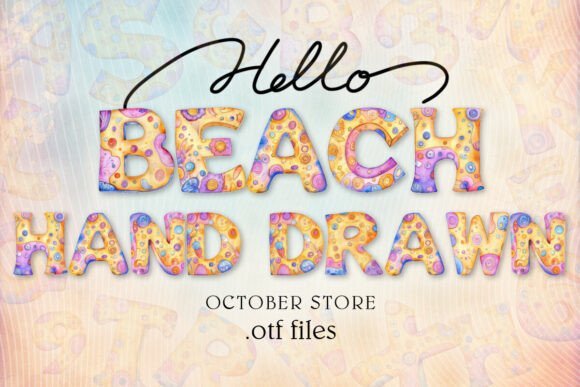
Summer Vibes in Every Letter: The Magic of Hand Drawn Beach Font
Have you ever sat on a beach, watching the sunset with a pencil in hand, and let your imagination run wild? For many of us, those carefree moments are the spark that ignites our creativity. Now, imagine capturing that same magic in a font that brings a smile to your face and a touch of whimsy to your designs. Welcome to the Hand Drawn Beach Summer Alphabet Font, a delightful collection of 36 unique characters that will transport you to a world of sun-kissed fun.
Whether you’re a graphic designer, a crafty enthusiast, or simply someone who loves the beach, this font is a treasure trove of creative possibilities. With its playful spirit and charming illustrations, the Hand Drawn Beach Font doubles as a coloring book, offering a unique blend of beach and summer theme that will infuse your designs with a sense of joy and adventure.
Key Features of Hand Drawn Beach Font
- Font Style: A beautiful, hand-drawn beach-inspired font with a relaxed, casual feel.
- Character Set: Includes uppercase and lowercase letters, numbers, punctuation marks, and special characters, making it a versatile font for various design projects.
- Unique Characteristics: The font’s hand-drawn style gives it a unique, organic feel, while its beach-inspired theme adds a touch of relaxation and playfulness.
Designer Review: Hand Drawn Beach Font
First off, let’s talk about what I love about this font: ✨ it’s perfect for summer vibes. The hand-drawn style gives it a fun, laid-back feel that’s just right for beach-inspired designs. The font is also highly customizable, with a range of weights and styles to choose from. This makes it easy to use in a variety of contexts, from posters to social media graphics.
Another thing I appreciate about this font is its legibility. ✨ The letters are easy to read, even at smaller sizes, which is a must for any font. The font also works well in combination with other fonts, making it a great choice for multi-font designs.
- ⚠️ Limited character set: This font is not suitable for body text or long blocks of text, as it’s not a highly comprehensive font.
- ⚠️ May not be suitable for formal designs: While the font is perfect for casual, summer-inspired designs, it may not be the best choice for formal or professional projects.
Overall, I think the Hand Drawn Beach Font is a great choice for designers who want to add a touch of summer fun to their projects. It’s easy to use, highly customizable, and works well in a variety of contexts. Just be aware of its limitations, and use it wisely.
The Hand Drawn Beach Font is perfect for creating beach-themed designs, such as invitations, posters, and social media graphics. You can also use it to add a personal touch to your wedding invitations, party decorations, or gift tags. To get the most out of this font, experiment with different font sizes, colors, and effects to create a unique and eye-catching design.
Does Hand Drawn Beach Font include any special features or ligatures?
Yes, the Hand Drawn Beach Font includes a range of special features, including ligatures, swashes, and alternate characters. These can be accessed by using the font’s built-in OpenType features or by manually selecting the desired glyphs in your design software.